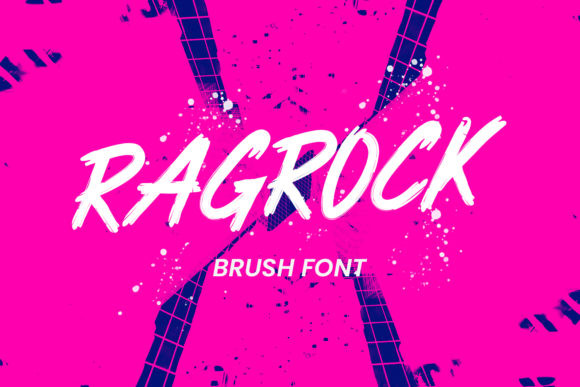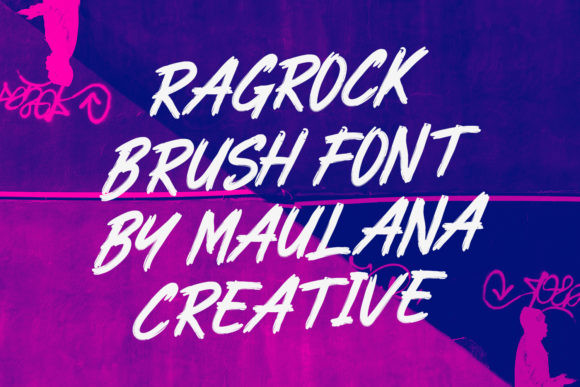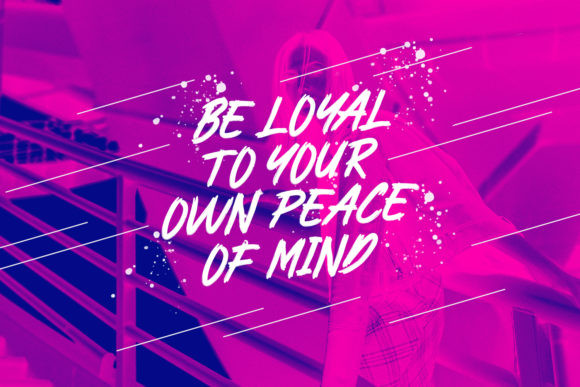
Ragrock Font
Ragrock is a bold and rough textured brush display font. It is ideal for a variety of urban or casual designs. Add it confidently to your projects, and they will stand out!